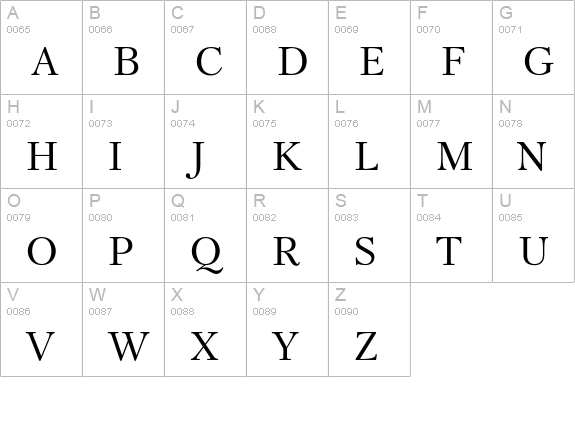
Introducing PT Petersburg Cyrillic Font, a stunning typeface that effortlessly combines classical elegance with a modern touch. This versatile font is perfect for adding a touch of sophistication to your design projects, whether it's for print, web, or signage. With its graceful curves and refined letterforms, PT Petersburg Cyrillic Font captures the essence of traditional Cyrillic typography while infusing it with a contemporary twist. Its clean and balanced lines ensure legibility at any size, making it an ideal choice for both large headlines and small body text. One of the standout features of PT Petersburg Cyrillic Font is its extensive character set, which includes all the Cyrillic glyphs you need to support various languages. From Russian to Ukrainian, Bulgarian to Serbian, this font has you covered. Additionally, it also includes Latin characters, allowing for seamless integration with other languages. And the best part? PT Petersburg Cyrillic Font is free to download at FontsMarket.com. That's right, you can have this exceptional font at your fingertips without spending a dime. Whether you're a professional designer or a typography enthusiast, this generous offering allows you to elevate your creative work without breaking the bank. So why wait? Unlock the beauty and versatility of PT Petersburg Cyrillic Font today. Download it for free at FontsMarket.com and let your designs speak volumes with its timeless charm and impeccable legibility.